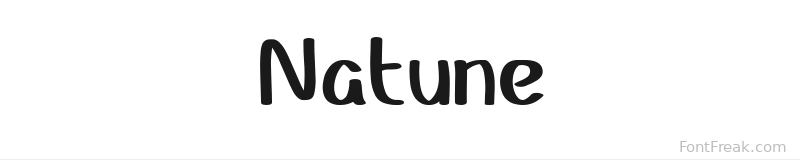
Natune
About Natune
Introducing the Natune font by Kong Font, a striking display typeface that captures attention with its unique characteristics. This font, released in 2020, falls under the decorative category, making it perfect for projects that require a touch of creativity and flair. The Natune font showcases a playful design with a moderate stroke weight and minimal contrast, which lends it an approachable and friendly feel. The letters are well-spaced, enhancing legibility while adding a trendy aesthetic to any design.
Natune is versatile, making it an excellent choice for various applications. It works beautifully for wedding invitations, where its charming style can evoke a sense of romance. Additionally, it's a great fit for movie posters, as it draws the viewer's eye and sets the tone for the film's theme. Restaurant menus can also benefit from the Natune font, as its inviting design can enhance the dining experience by making the menu more visually appealing. Content creators will find it useful for social media graphics, where captivating visuals can boost engagement.
Targeted primarily at graphic designers, small business owners, and content creators, Natune offers a unique solution for those looking to stand out in their respective fields. The font's playful yet refined characteristics make it a go-to choice for anyone seeking to inject personality into their designs.
What sets the Natune font apart is its ability to blend whimsy with professionalism, allowing it to adapt to various contexts while maintaining its distinct charm. For those seeking to elevate their design projects, the Natune font free download is an opportunity to bring this exceptional typeface into your creative toolkit.